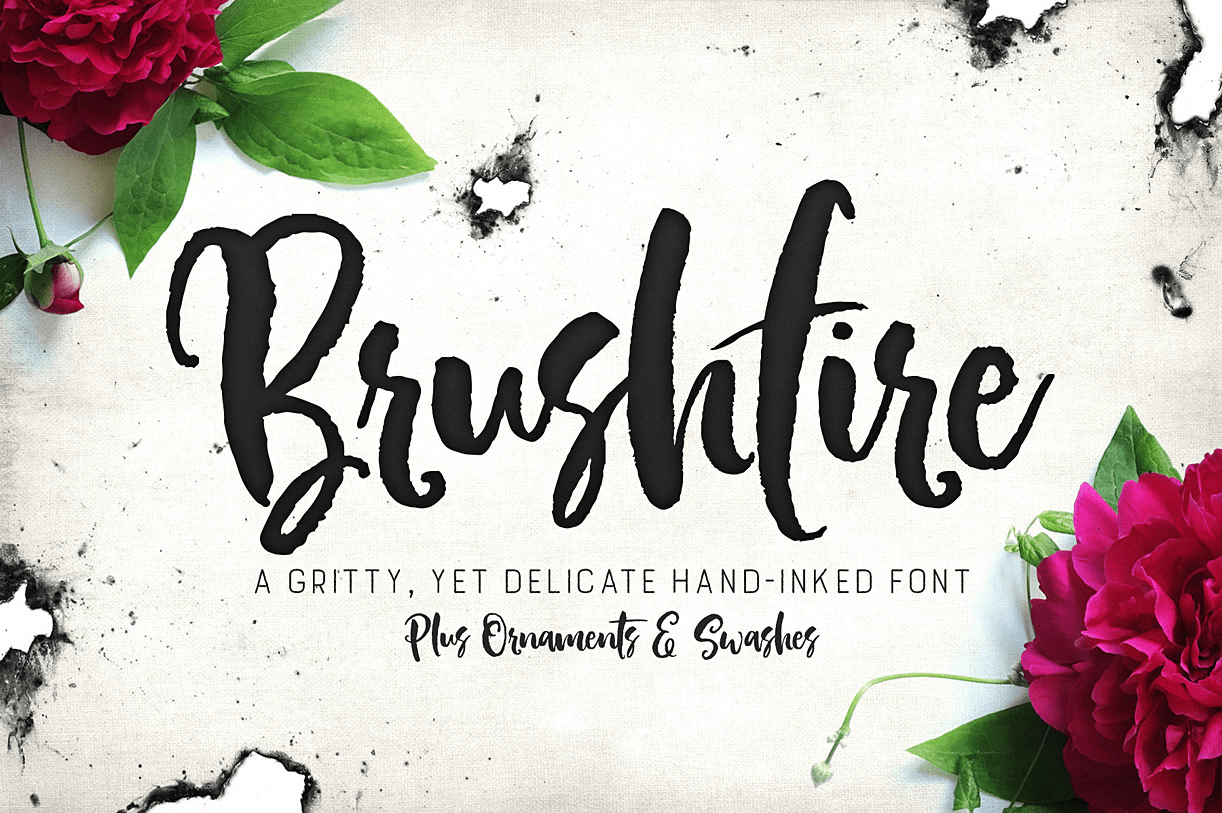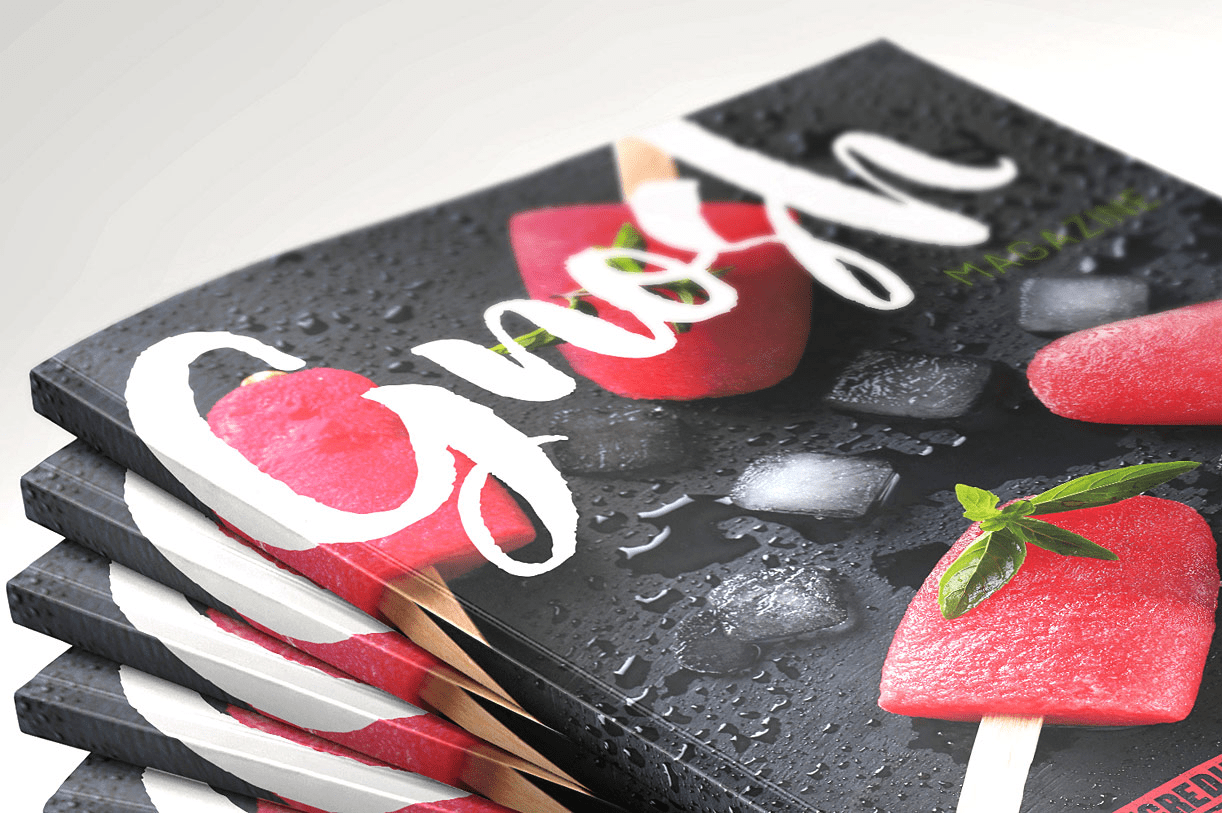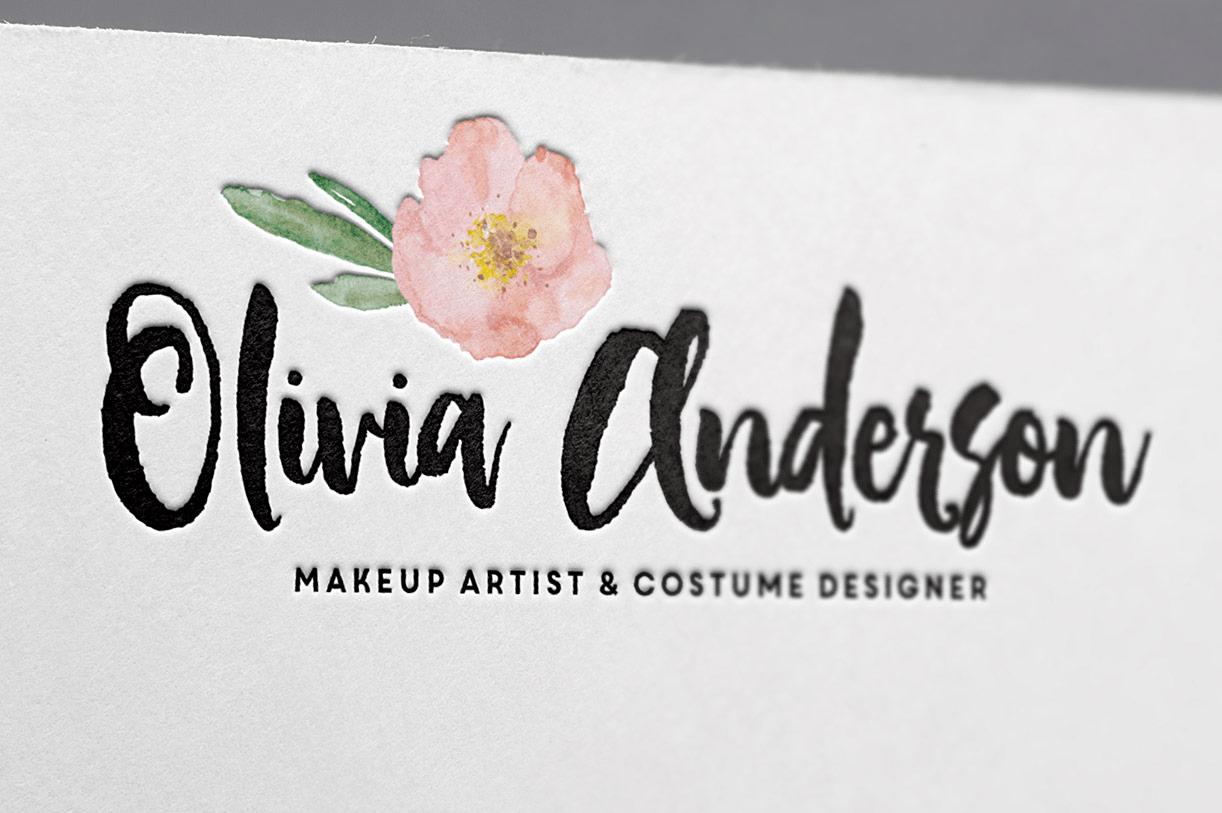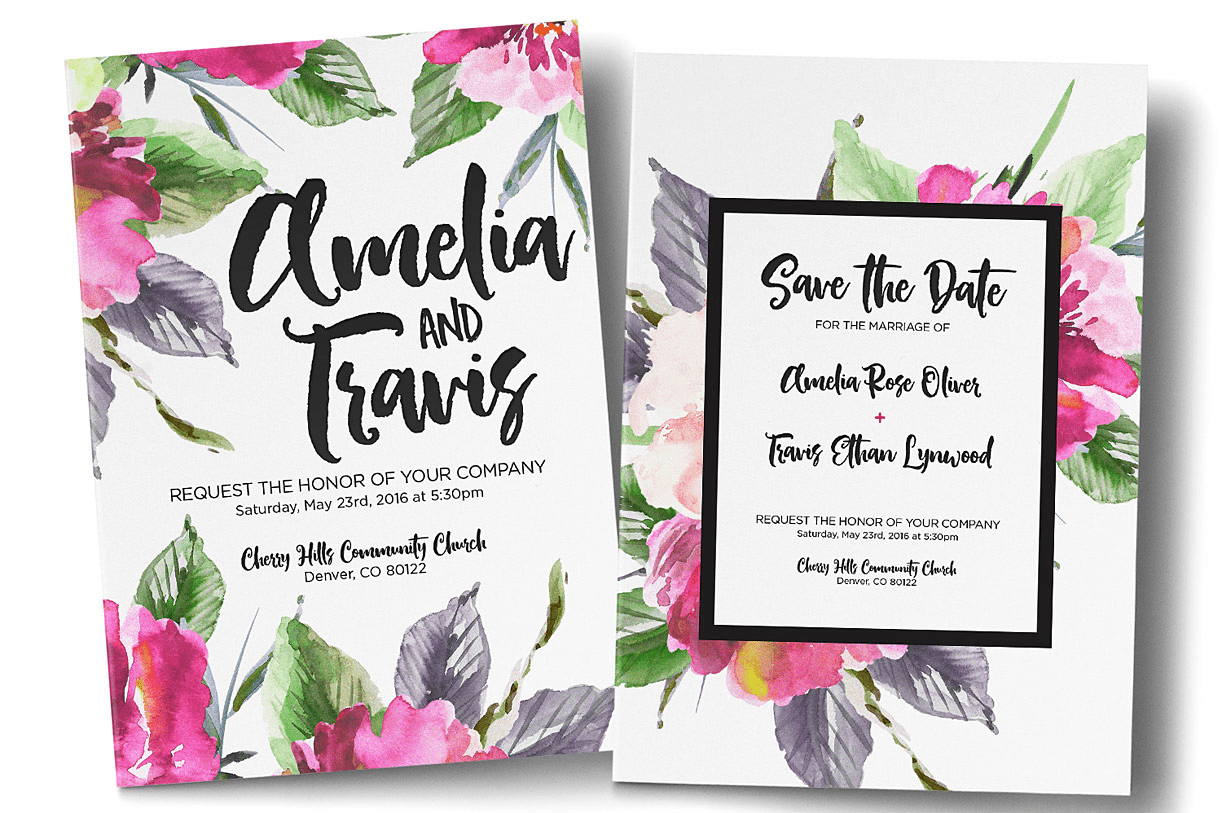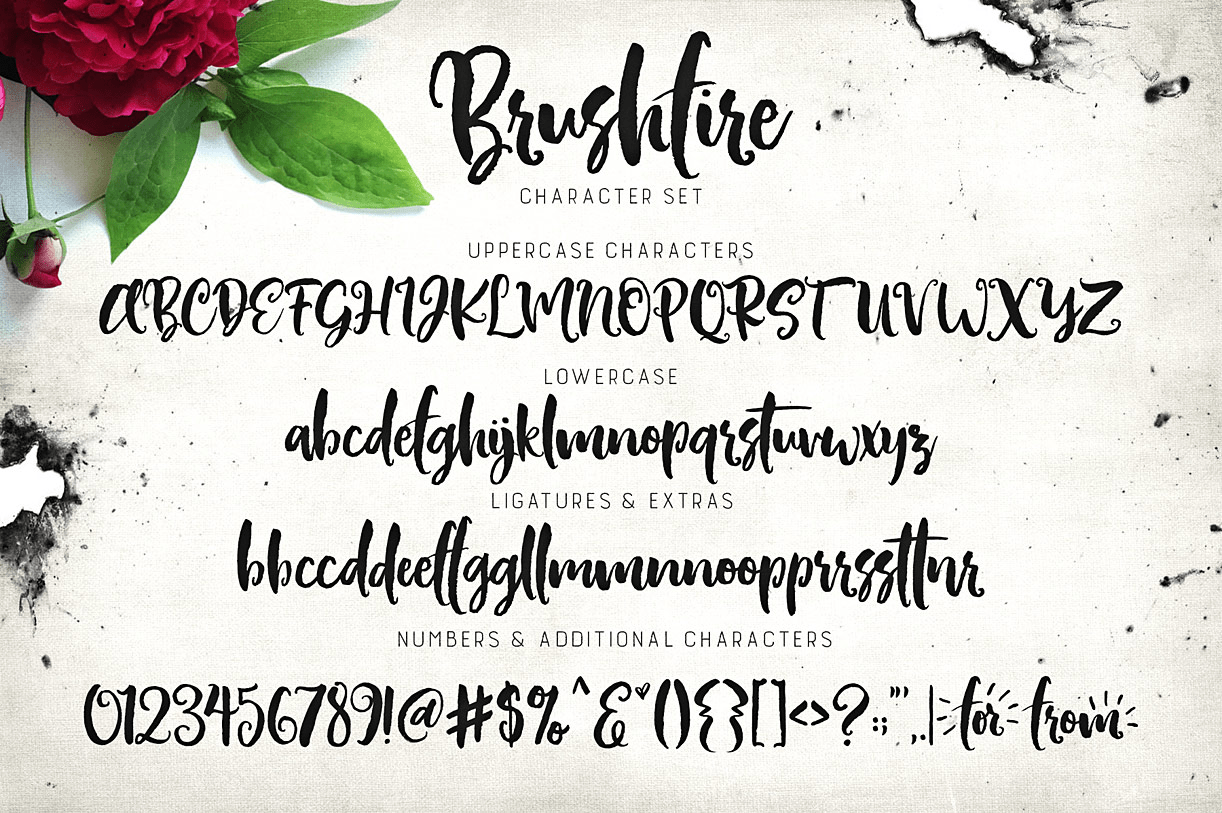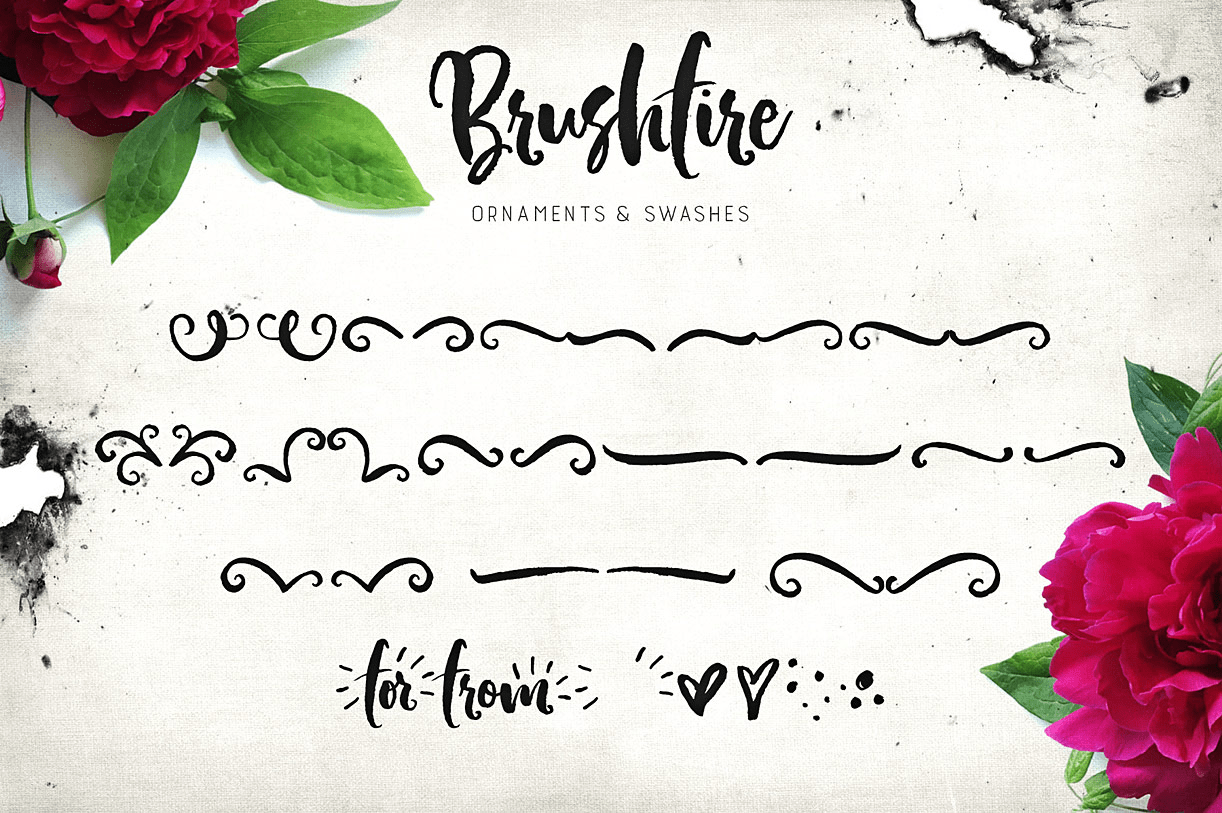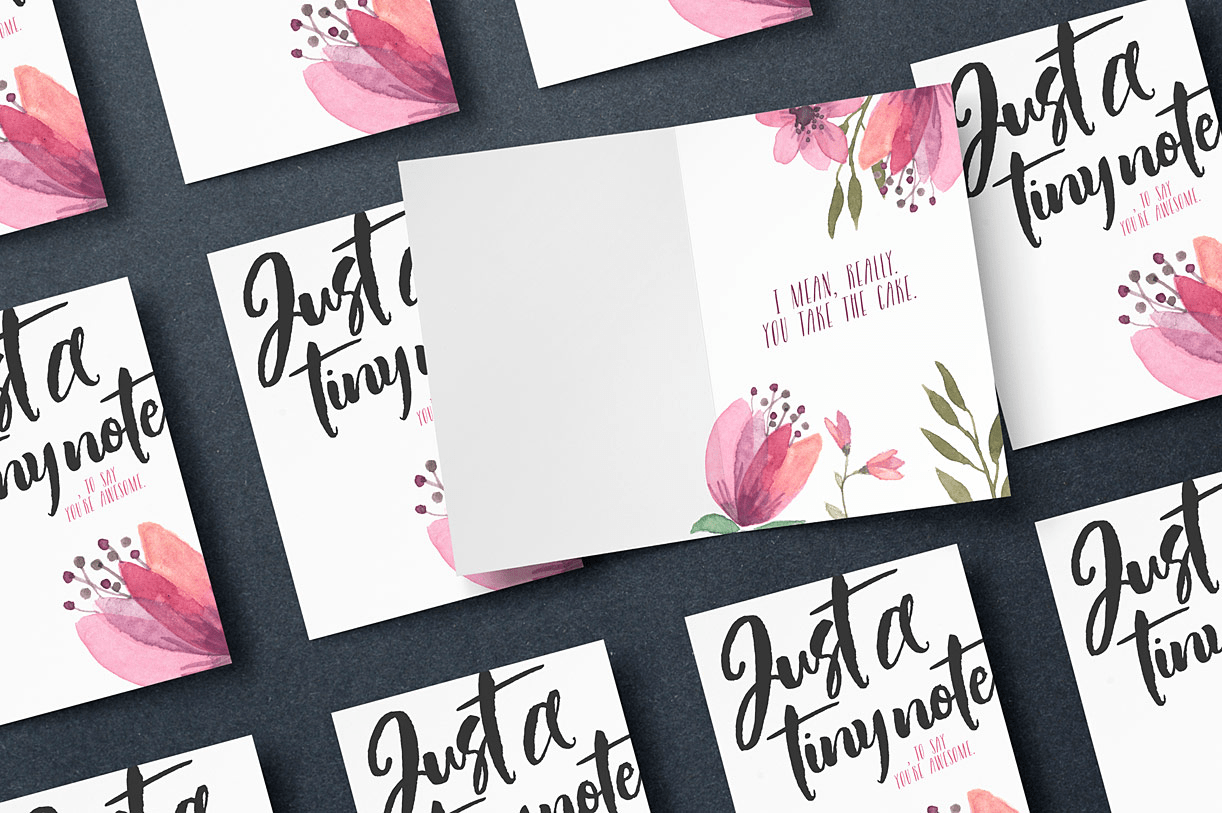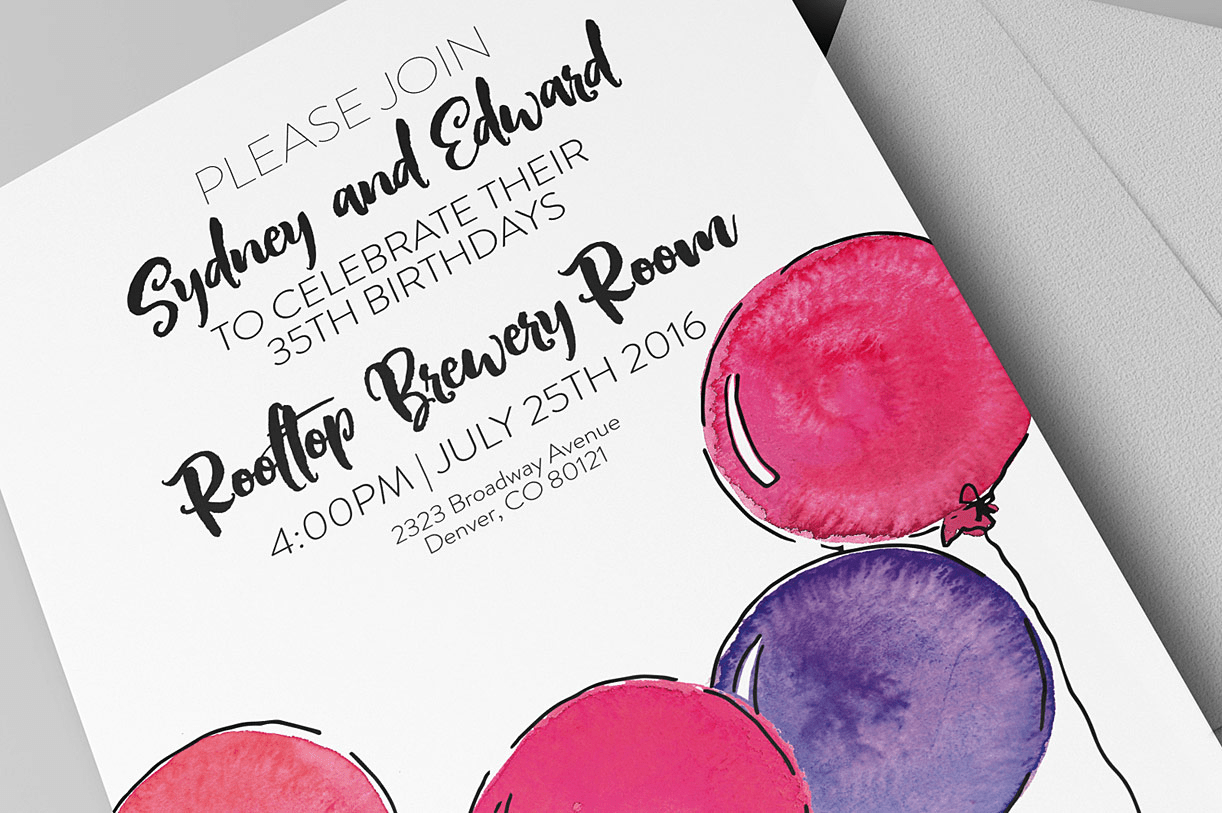
About Brushfire
Hey lovelies, feast your eyes on Brushfire! A gritty, yet delicate, hand-inked display font with plenty of soul. Made with a super-fine art brush and thick watercolor ink, Brushfire is a blend of classic characters, and quick stokes for a unique set of…